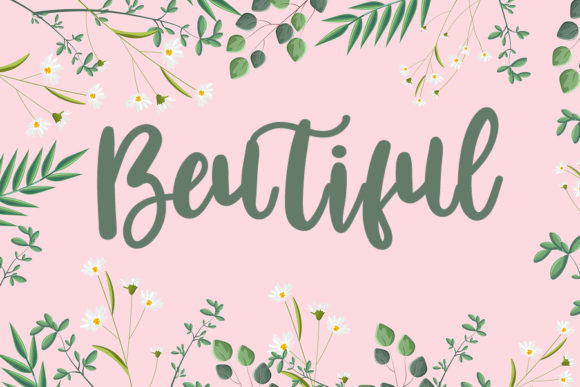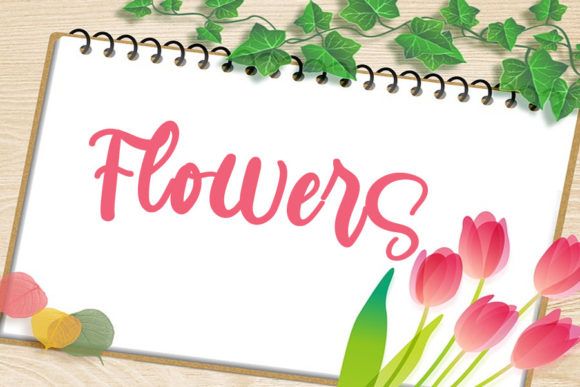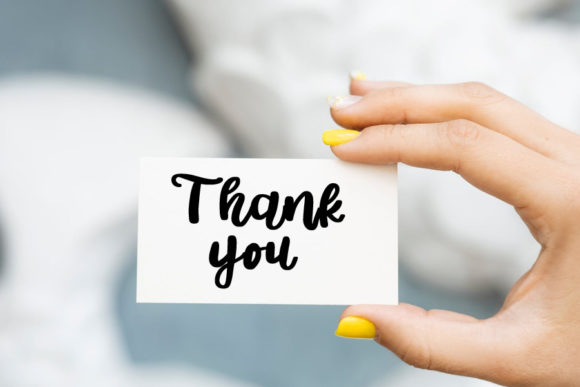
About Jasmine Font
“Jasmine” gracefully emerges as a delicate and elegant handwritten font, capturing the essence of timeless beauty. The meticulously balanced letters of this font come together harmoniously, forming a masterpiece that invites admiration and awe. As you delve into its versatile style, you’re bound to discover a world of creative possibilities that will lead to the creation of truly spectacular designs.
Visualize “Jasmine” as an artist’s brush, creating strokes that dance across your canvas with grace and finesse. Its distinct charm lends an air of sophistication to your projects, infusing them with a touch of elegance that stands the test of time. Integrating this font into your designs is akin to embarking on a journey where your creative vision transforms into a symphony of visual delight.
This font becomes a conduit for limitless creativity, offering a canvas upon which you can craft designs that leave an indelible mark. Whether it’s conveying emotion through exquisite lettering, adding a refined touch to invitations, or breathing life into logos and branding, “Jasmine” is the embodiment of versatile artistry.
In a design landscape where elegance and versatility hold paramount importance, “Jasmine” takes center stage as your go-to font for creating designs that resonate with grace and beauty. Let its delicate and well-balanced letters be the medium through which your creativity flourishes, resulting in designs that inspire and captivate. Embrace the versatile allure of “Jasmine” and witness how it transforms your visions into truly spectacular works of art, leaving an indelible impression on all who encounter them.